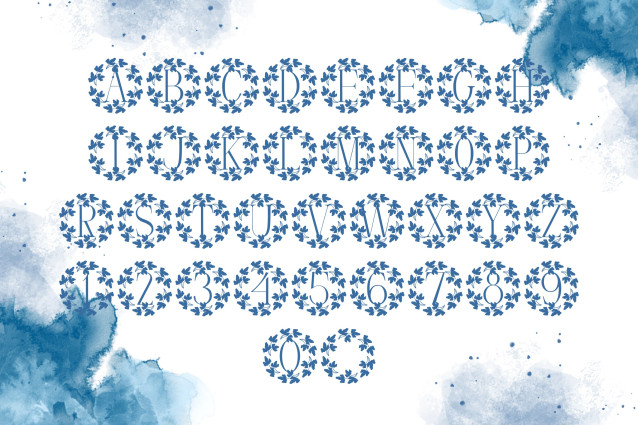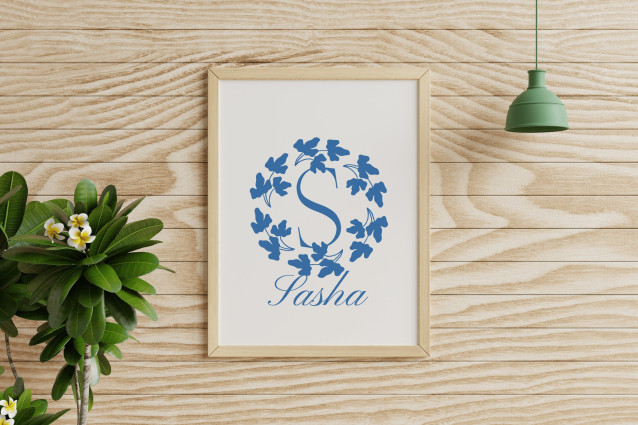
Petalyn Font
Petalyn Monogram is a graceful serif monogram font that blends timeless elegance with soft botanical charm. Each uppercase letter is adorned with subtle petal-like embellishments, evoking the beauty of a blossoming garden. Ideal for wedding invitations, logos, feminine branding, and handmade crafts, this font adds a touch of refinement to any personalized design.